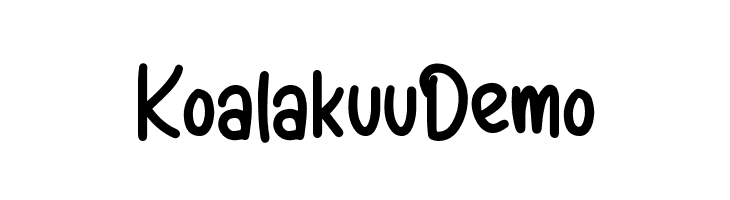
A playful, rounded font with a hand-drawn, whimsical style.
( Fonts by Fachran Heit )
A bold, playful font with dynamic, slightly tilted characters.
A playful, casual handwritten font with smooth, rounded strokes.
A playful, rounded handwritten font with smooth curves and a friendly appearance.
A bold, playful script font with flowing, cursive characters.
A playful, handwritten font with fluid and organic letterforms.
A bold, jagged font with a dynamic, textured appearance.
( Fonts by Dexsar Harry Anugrah )
Playful handwritten font with tall, narrow letters.